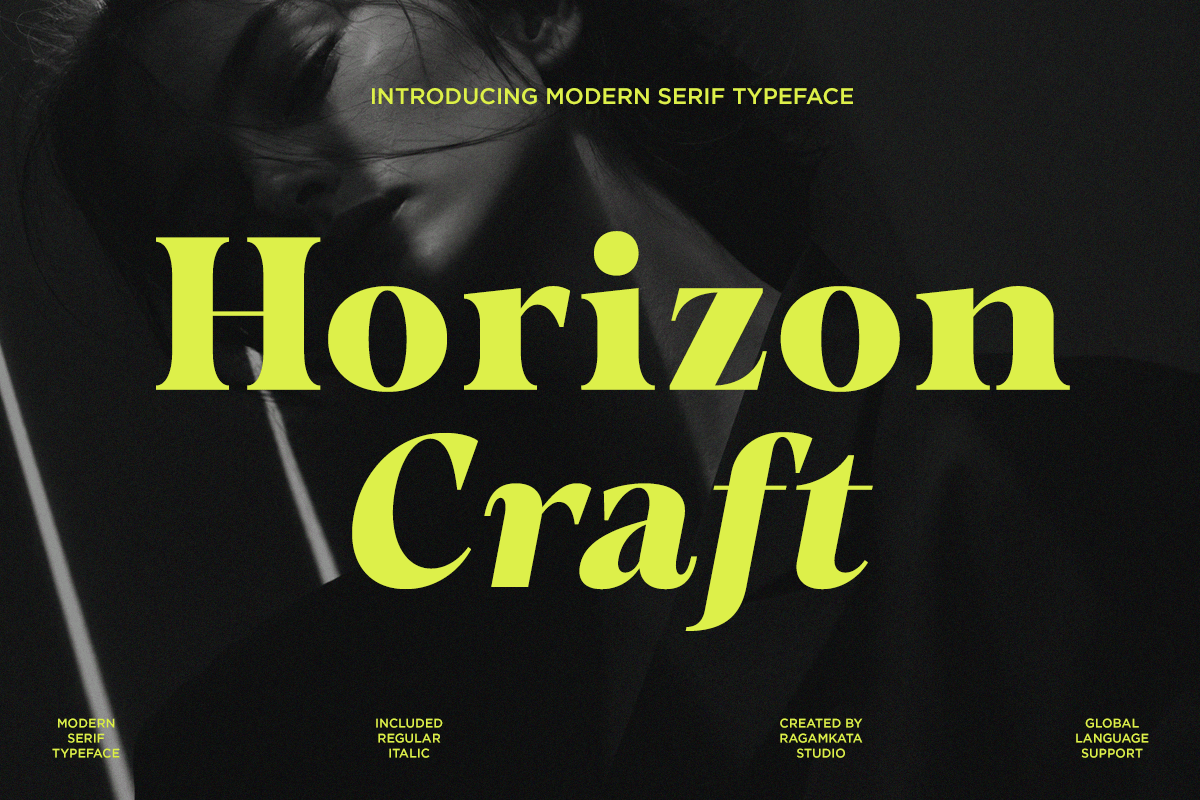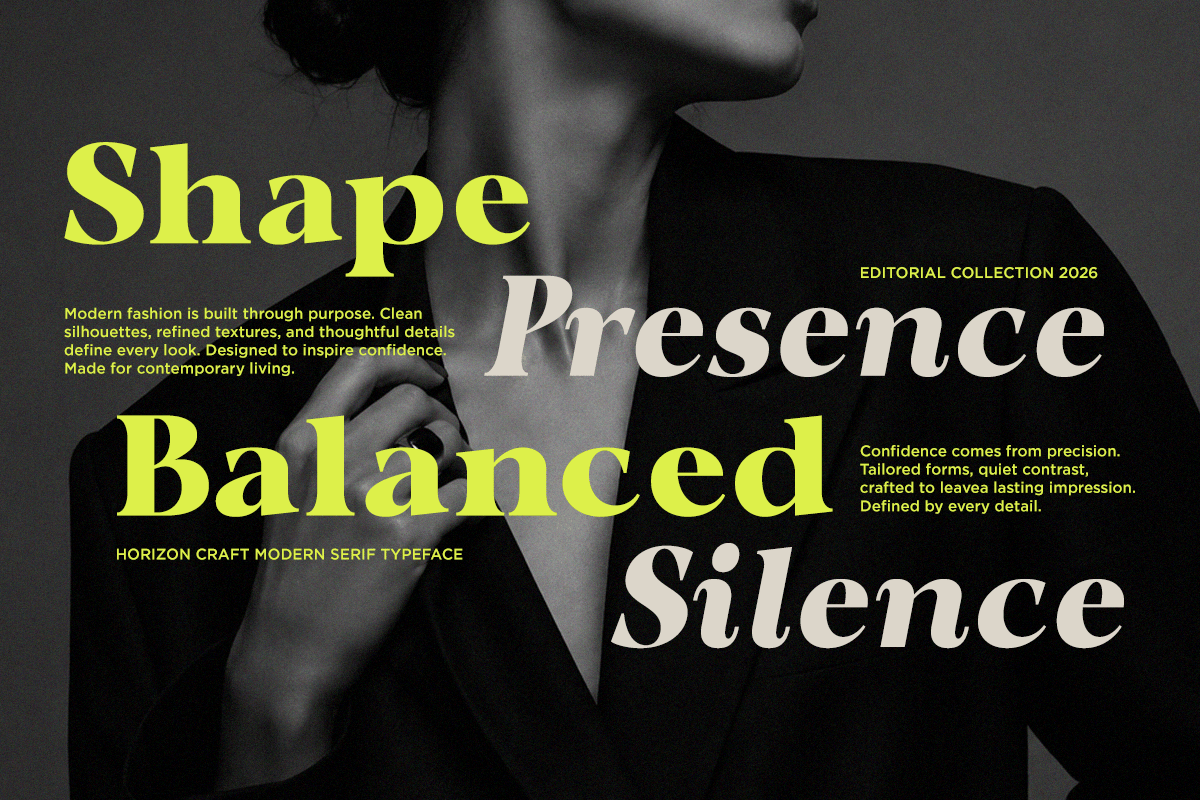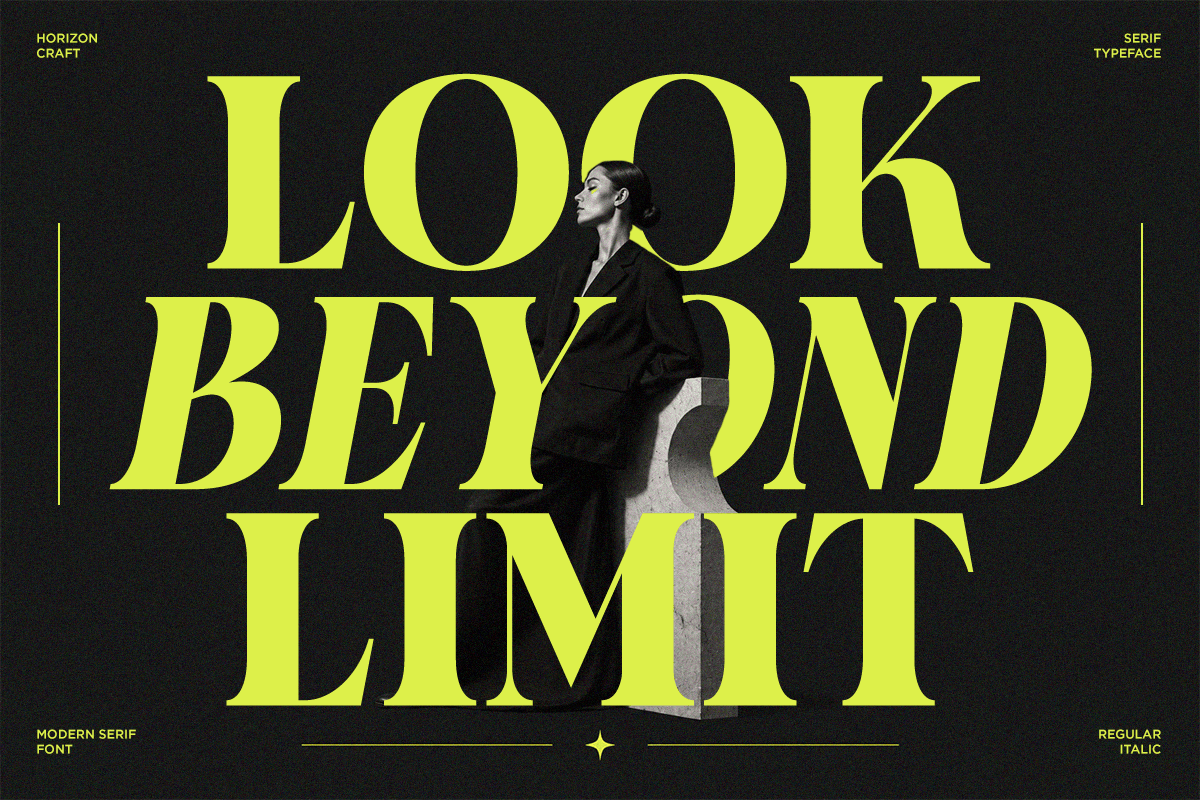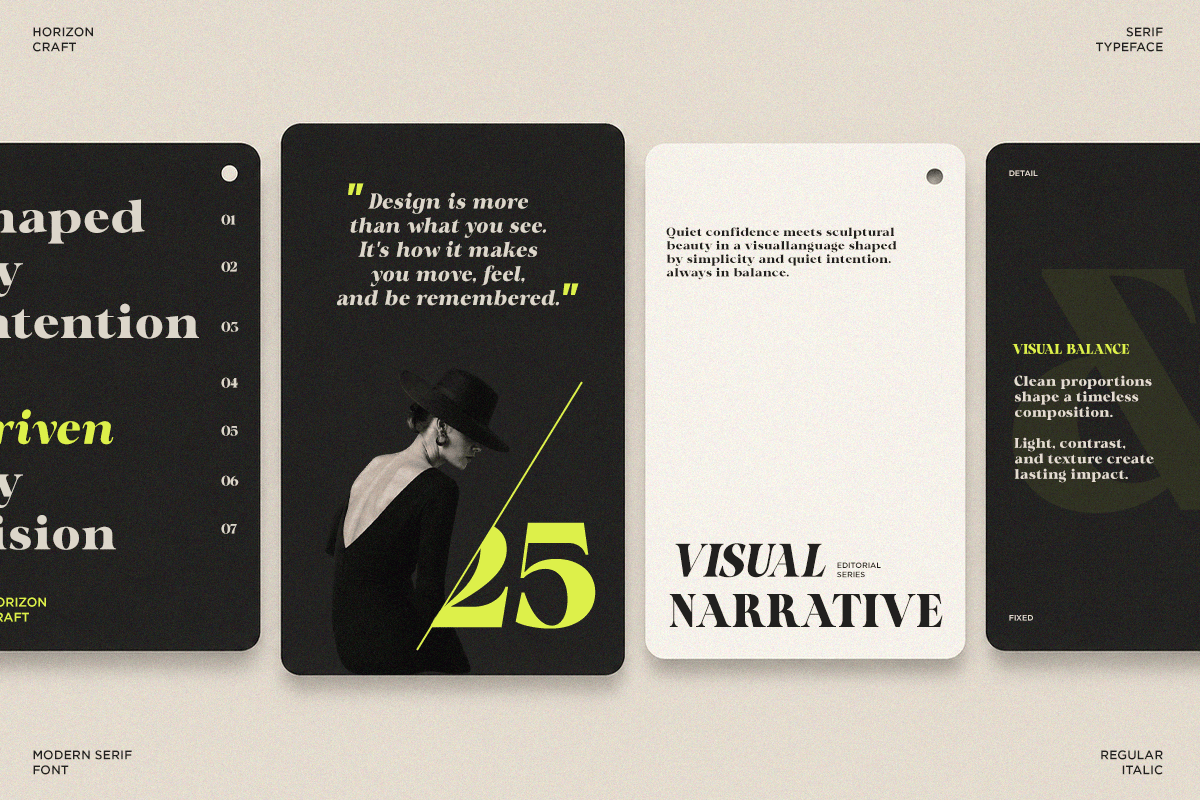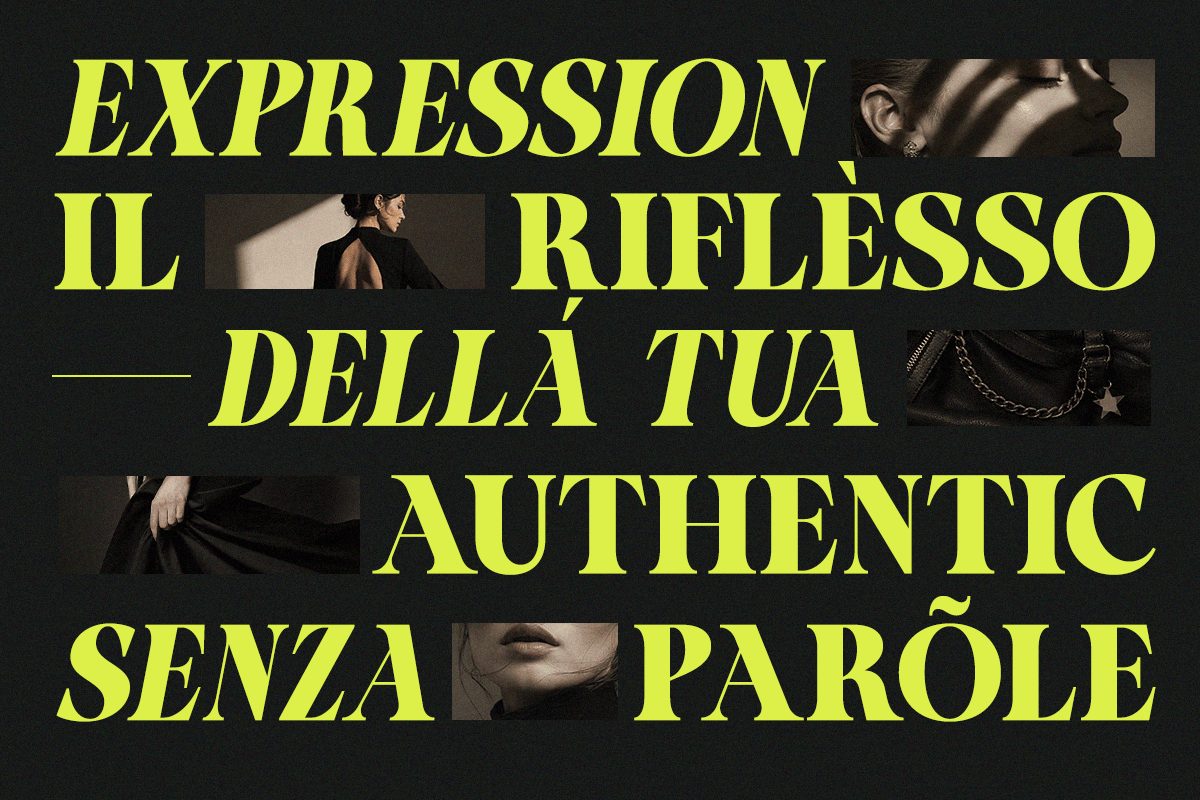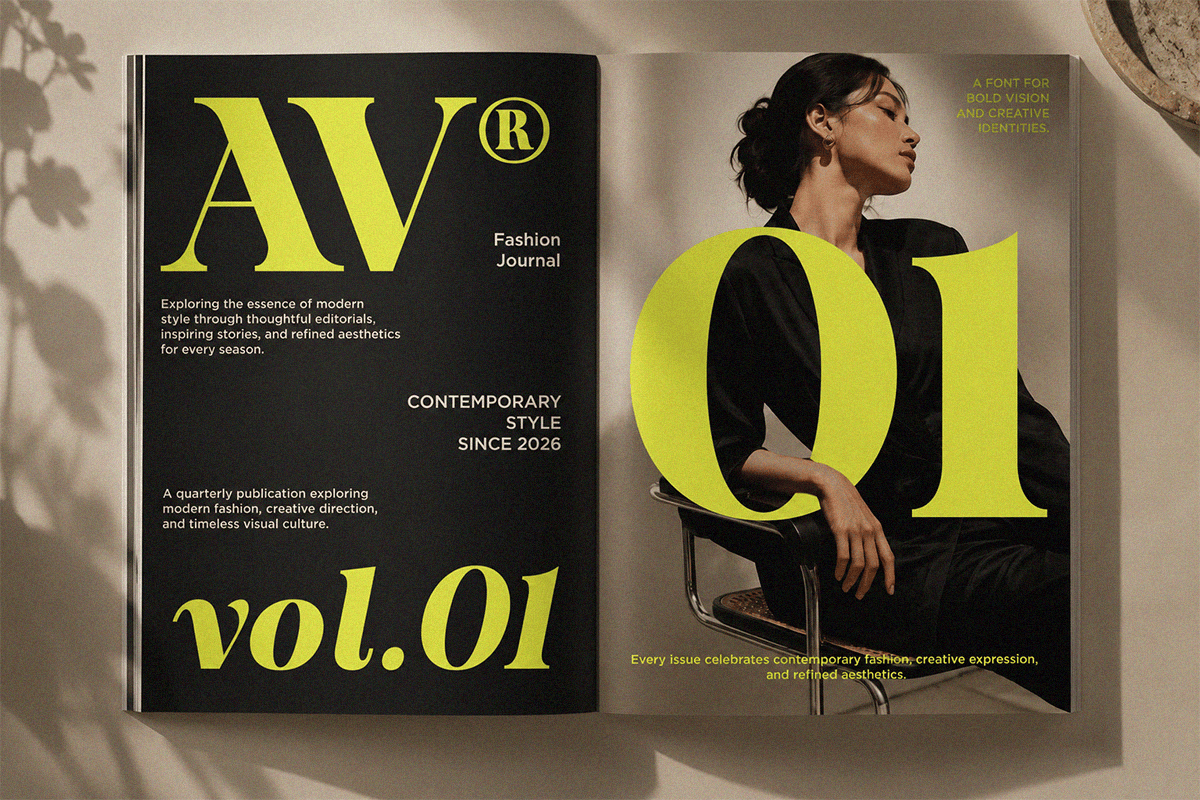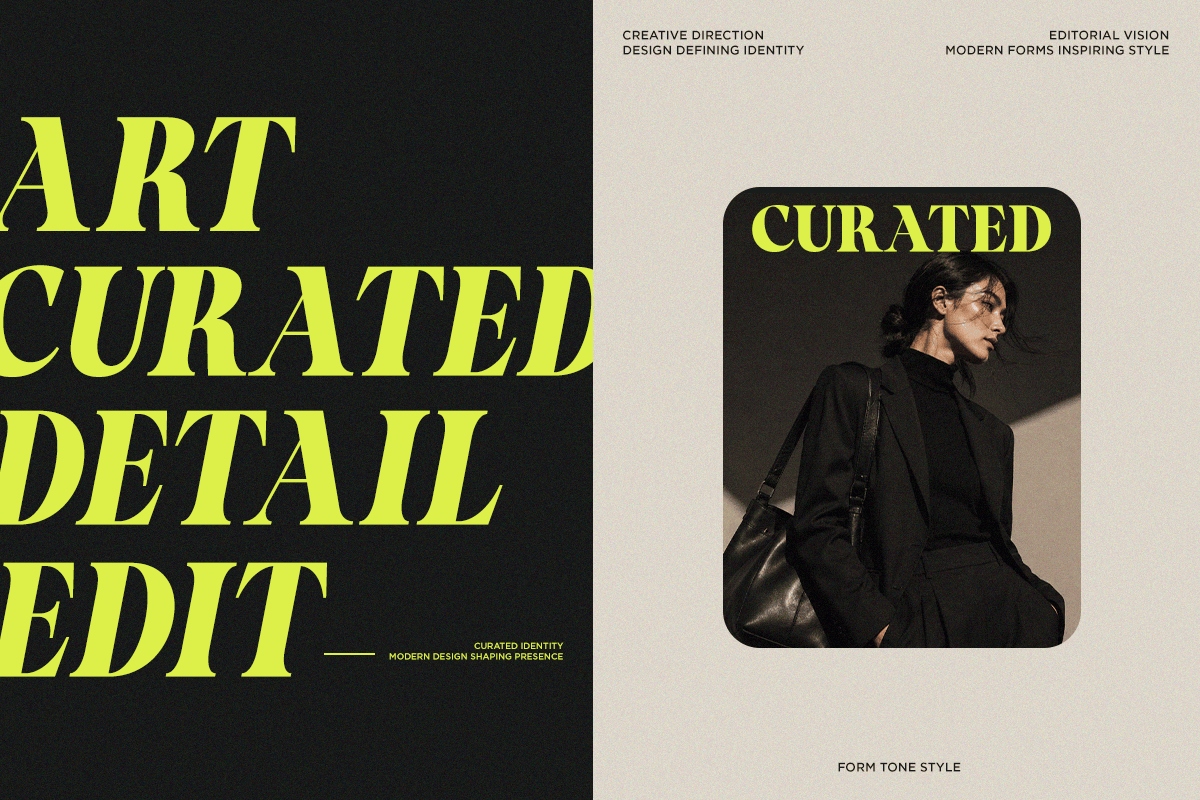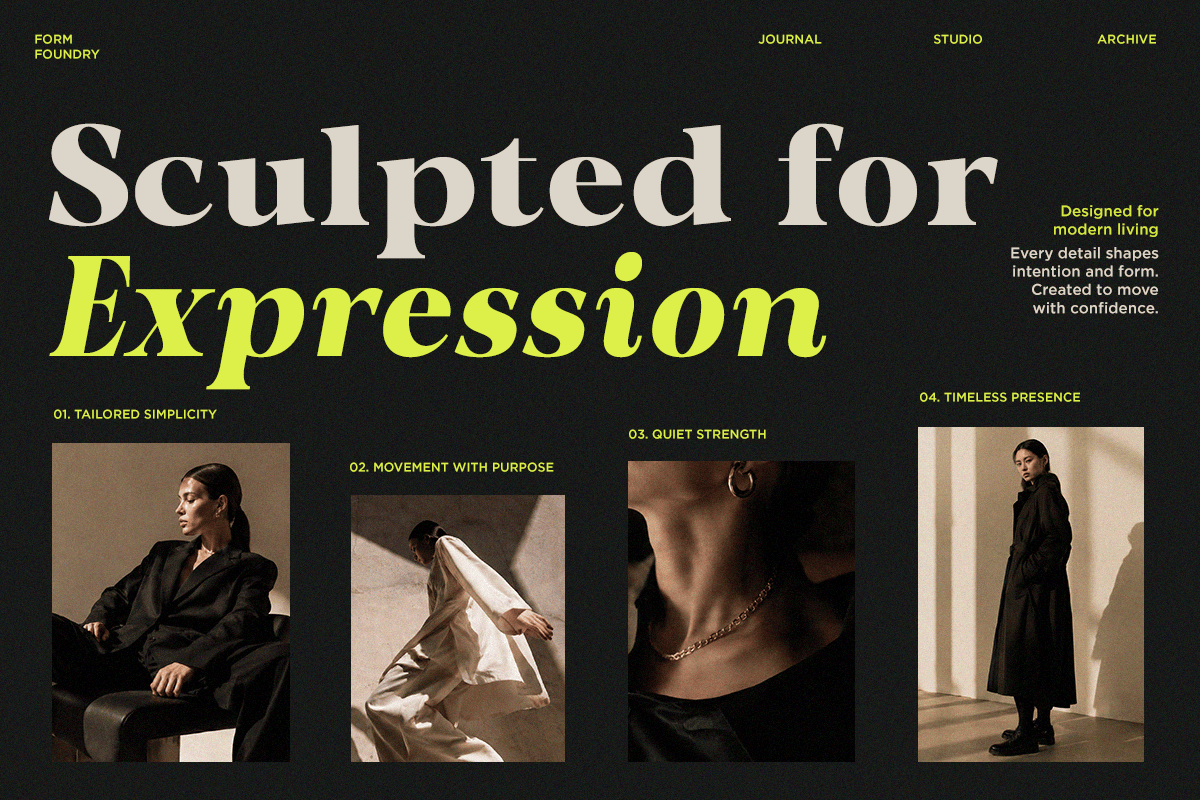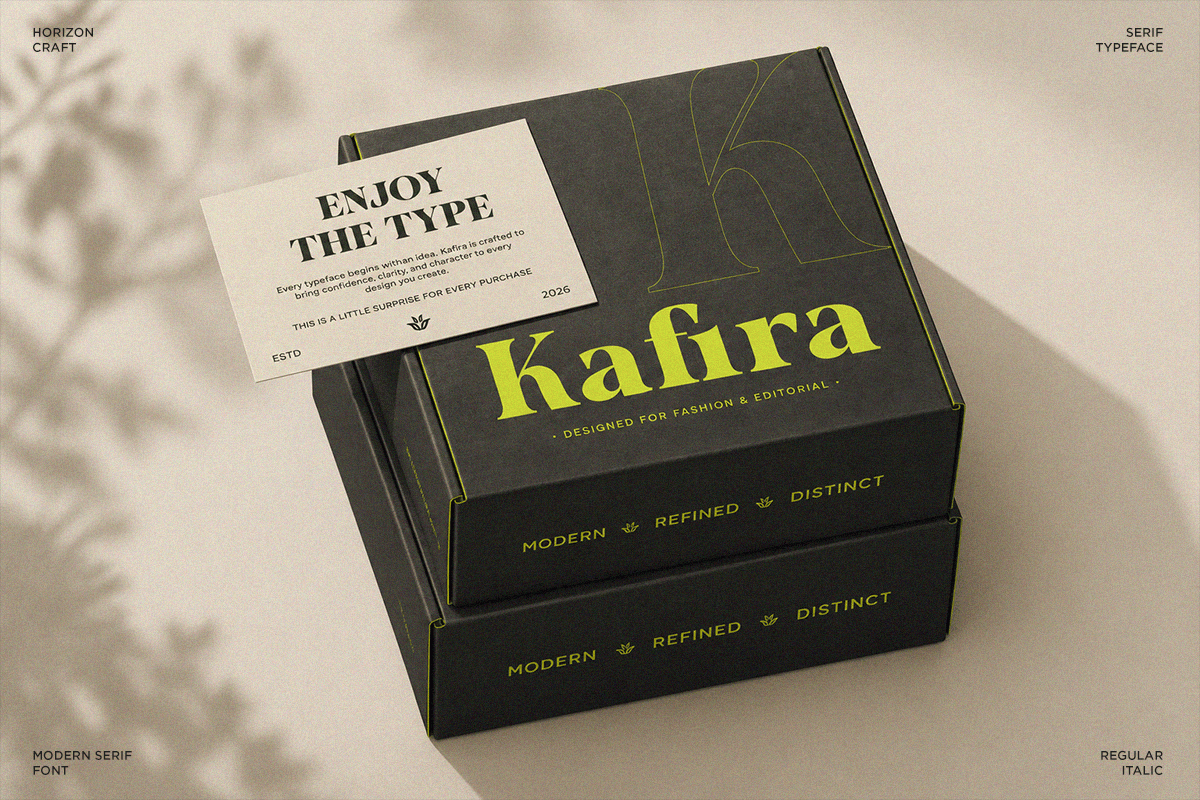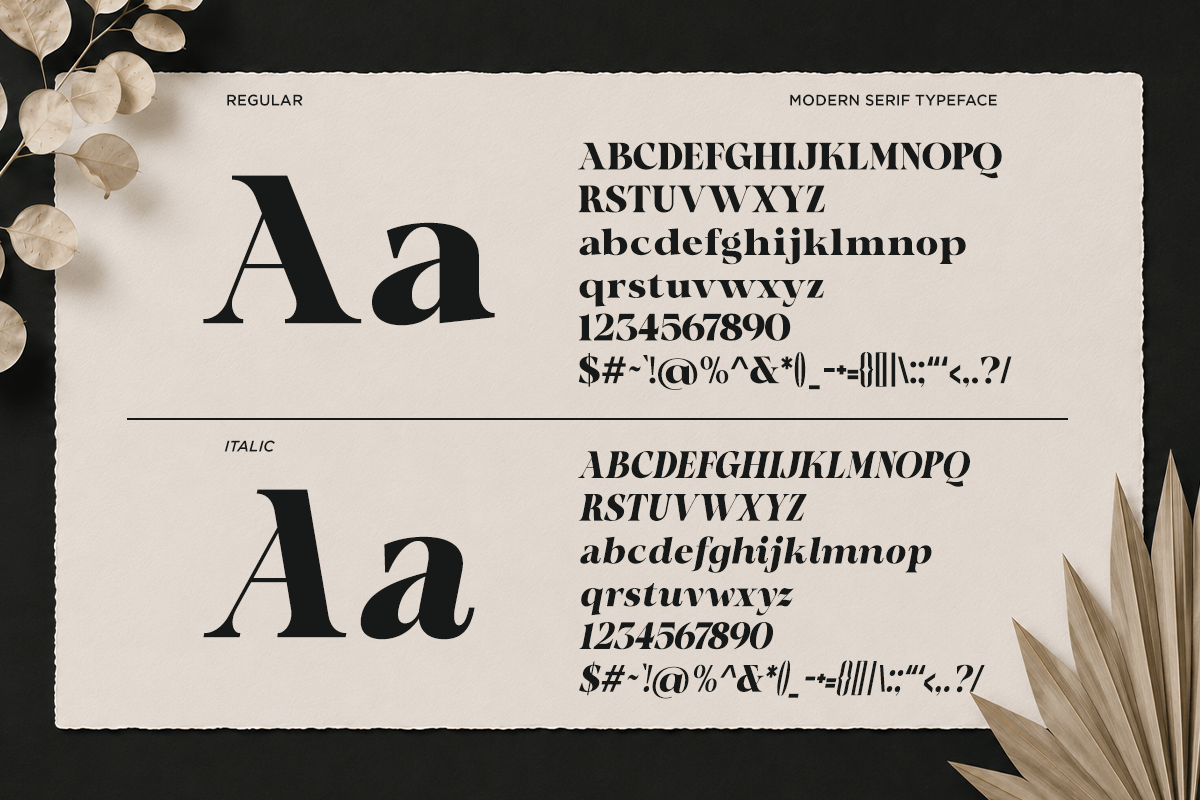
Horizon Craft – Bold Magazine Serif Font
Horizon Craft is an elegant editorial serif font designed to bring a sophisticated and luxurious character to modern visual designs. Featuring high-contrast letterforms, graceful curves, and expressive details, Horizon Craft creates a refined presence for bold headlines, fashion layouts, and premium visual identities.
Perfect for fashion magazines, luxury branding, beauty campaigns, cosmetic packaging, editorial layouts, wedding stationery, posters, advertising, logos, and social media designs. Its distinctive serif style adds an artistic and contemporary touch to headlines, titles, and brand compositions.
Horizon Craft is an excellent choice for designers looking to create a fashion-forward, sophisticated, feminine, and premium aesthetic. Use it for magazine covers, brand identities, campaign graphics, packaging, invitations, and other projects that demand elegant and expressive typography.
– Regular and True Italic Serif
– Uppercase and Lowercase
– Number, Symbol, and Punctuation